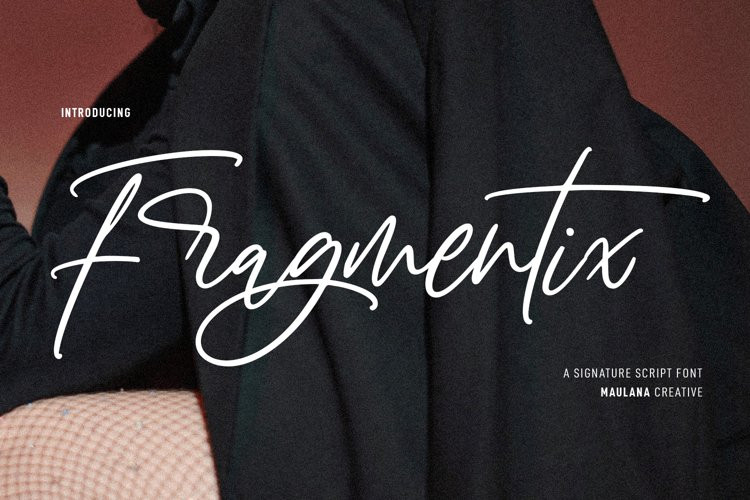
Fragmentix Font
Fragmentix FontFragmentix is a signature script font. With light contrast stroke, fun character with a bit of ligatures and alternates. To give you an extra creative work. Fragmentix font support multilingual more than 100+ language. This font is good for logo design, Social media, Movie Titles, Books Titles, a short text even a long text letter and good for your secondary text font with sans or serif. Make a stunning work with Fragmentix font.